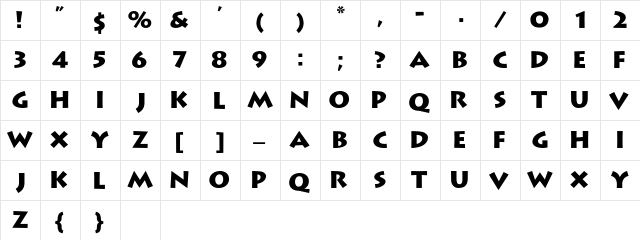
Gib-El-Tarik Extended Bold Bold
Design Context for Gib-El-Tarik Extended Bold Typeface
Gib-El-Tarik Extended Bold takes a measured approach to typography — its balanced proportions and neutral character make it a reliable workhorse for both digital and print work. The heavy weight commands attention and anchors typographic hierarchies.
Pro Tip: Use Gib-El-Tarik Extended Bold in both headline and body roles to test its range before committing to a single application.